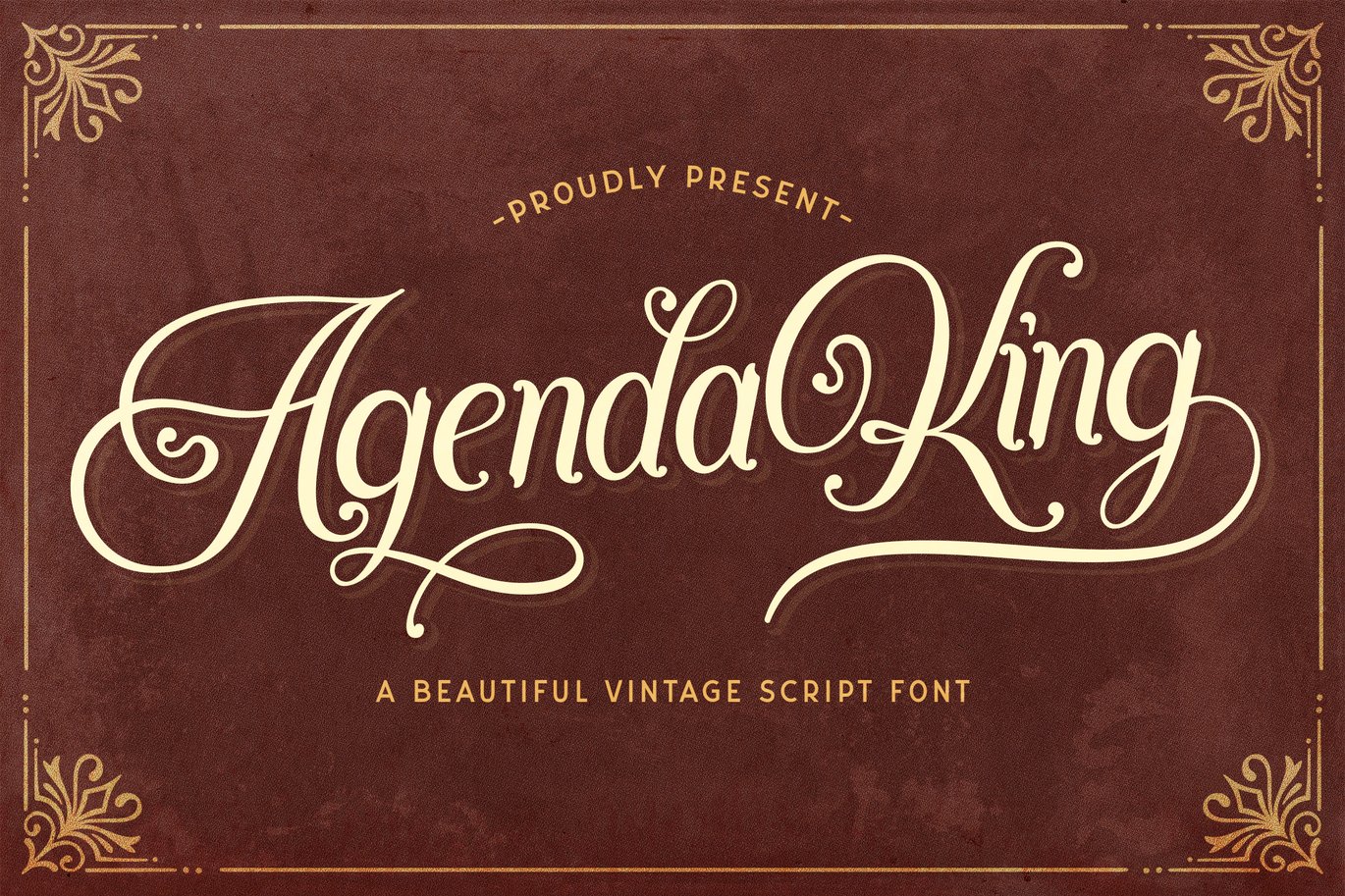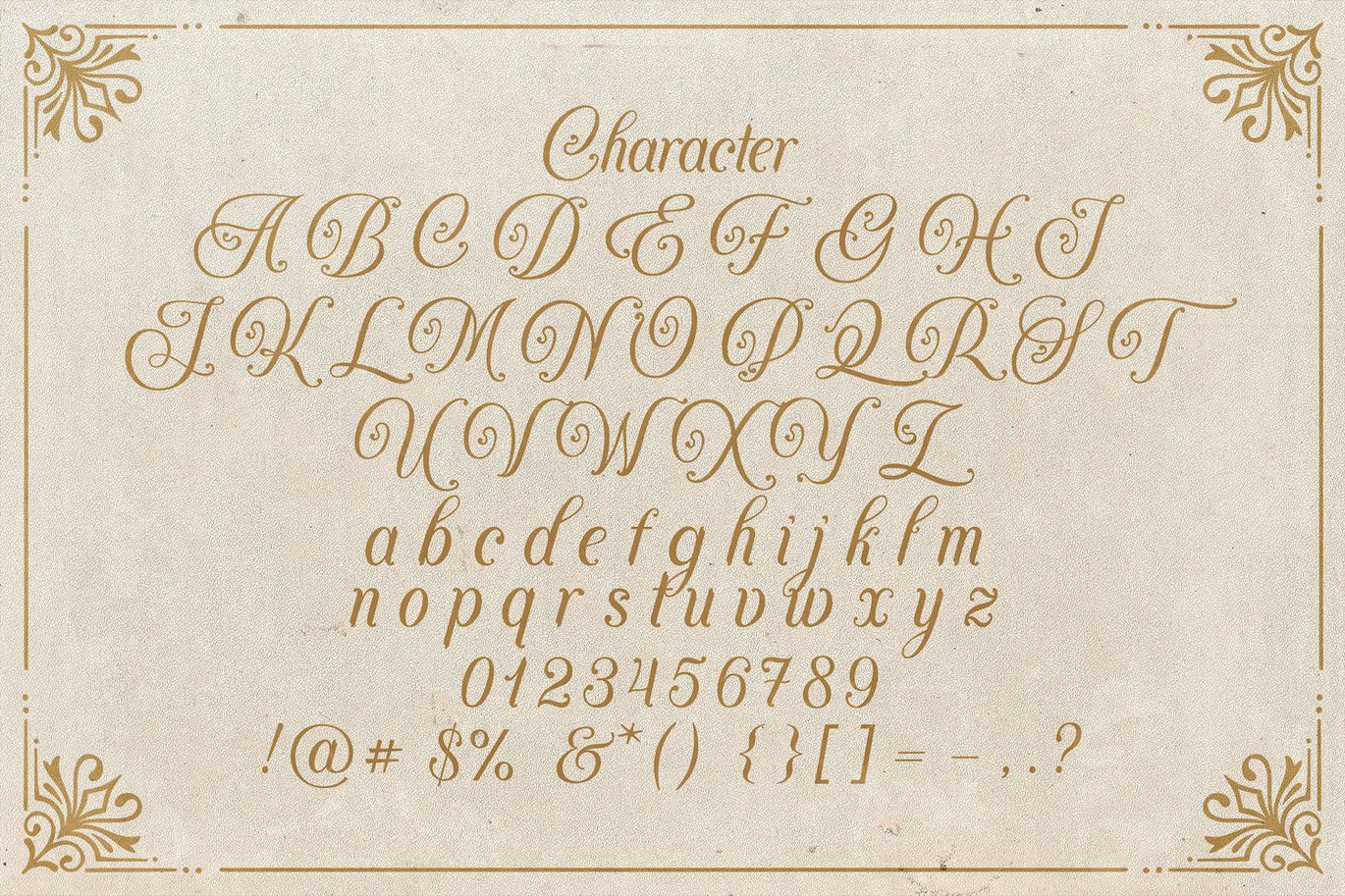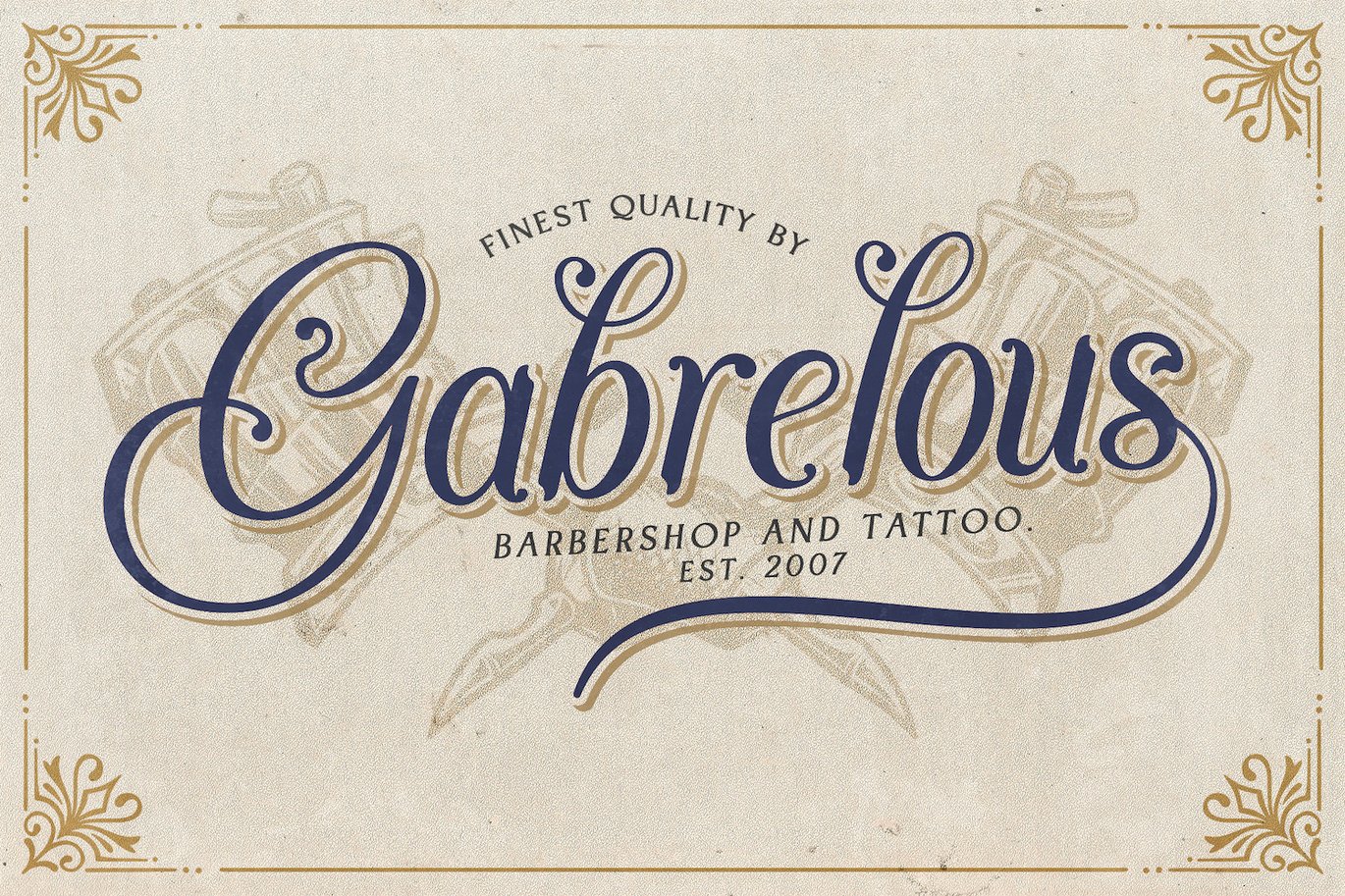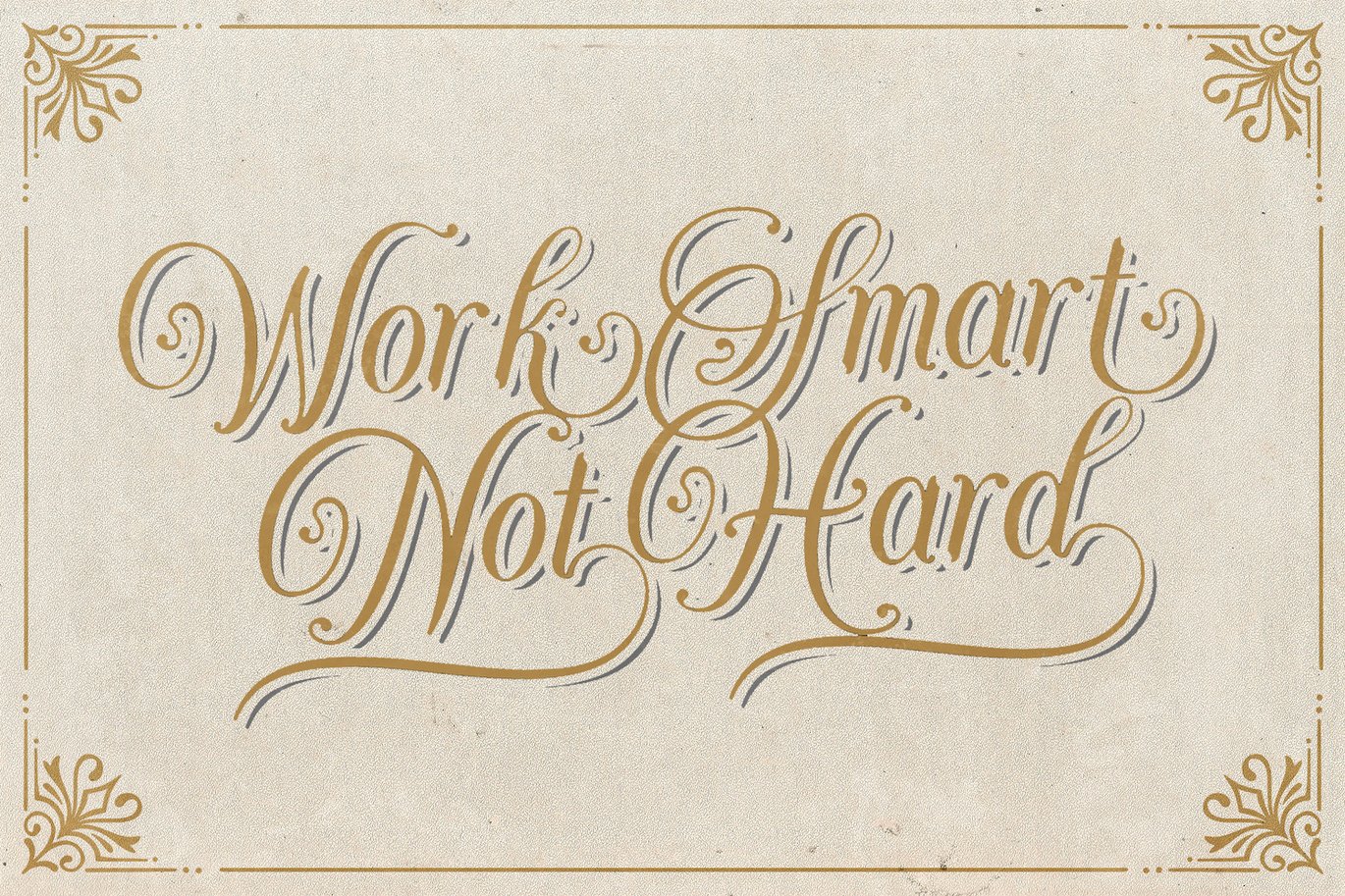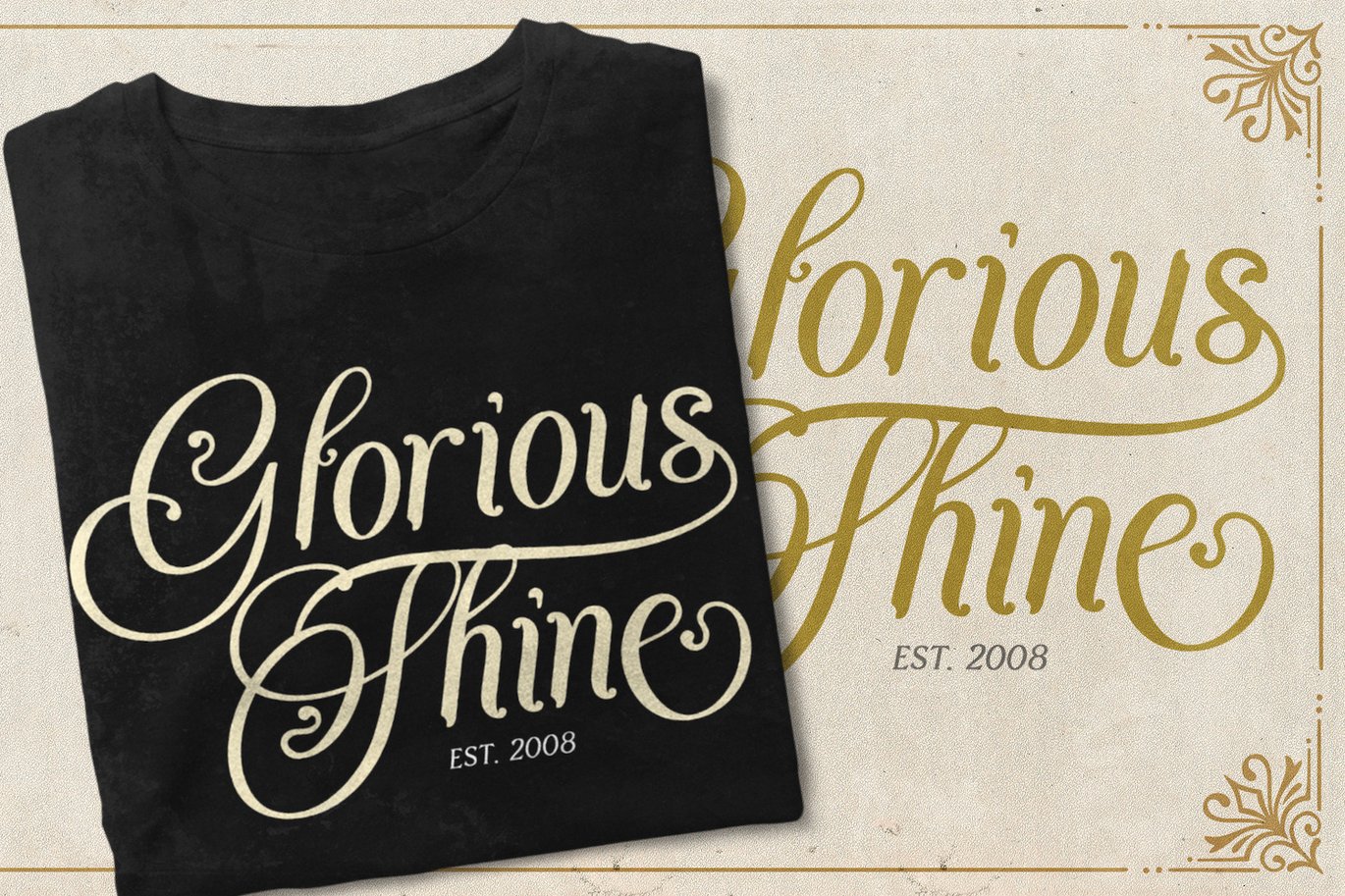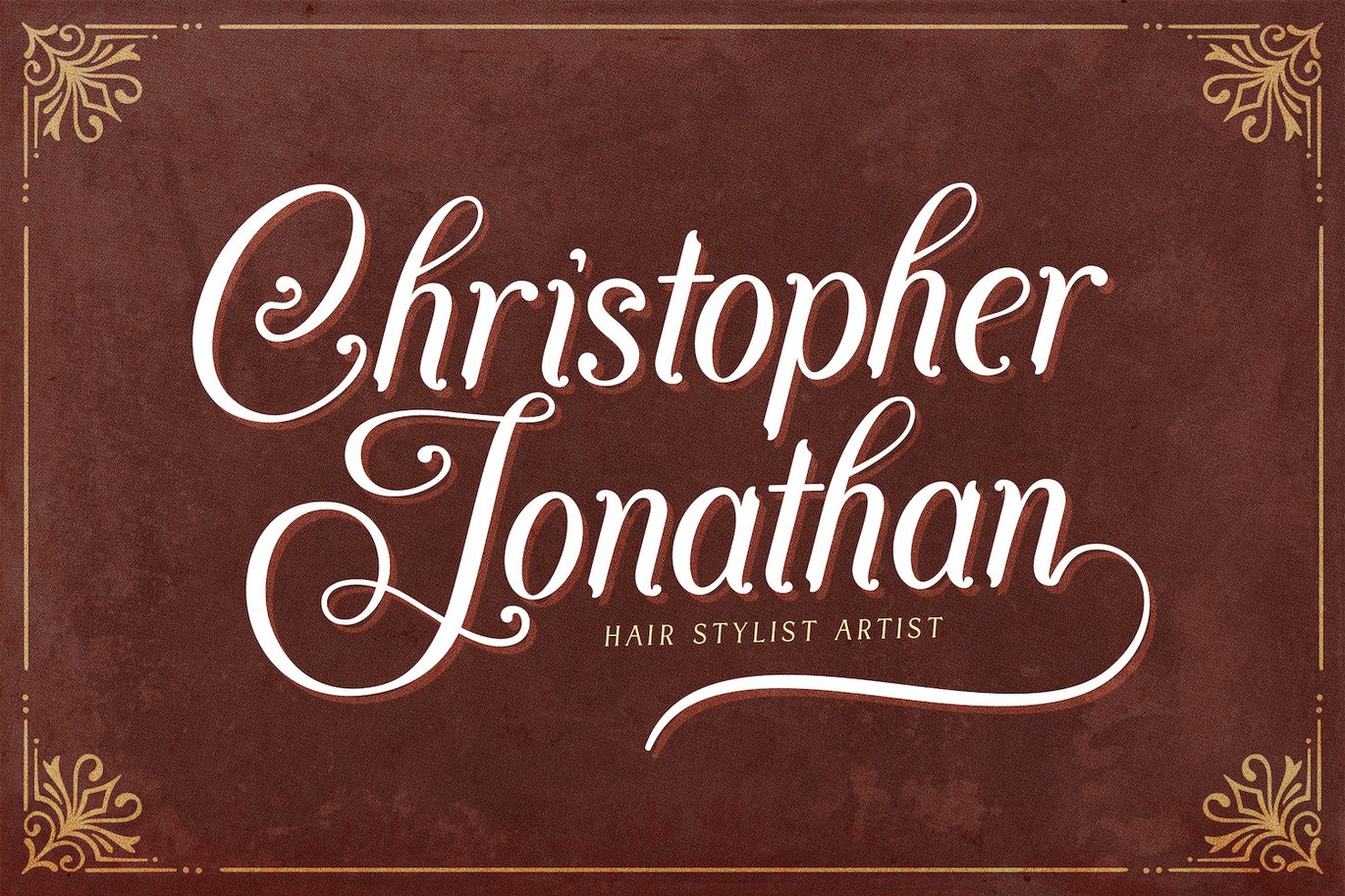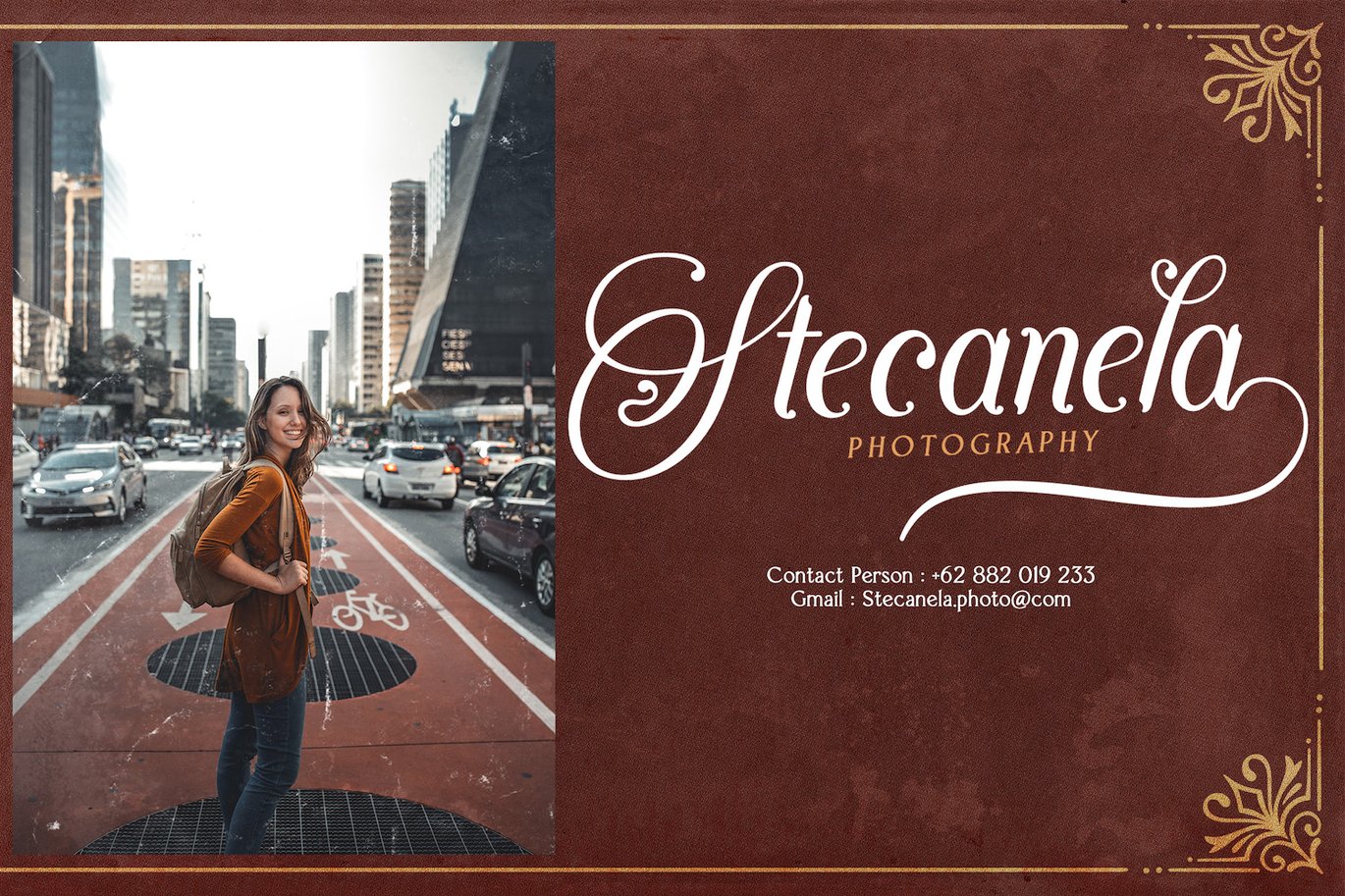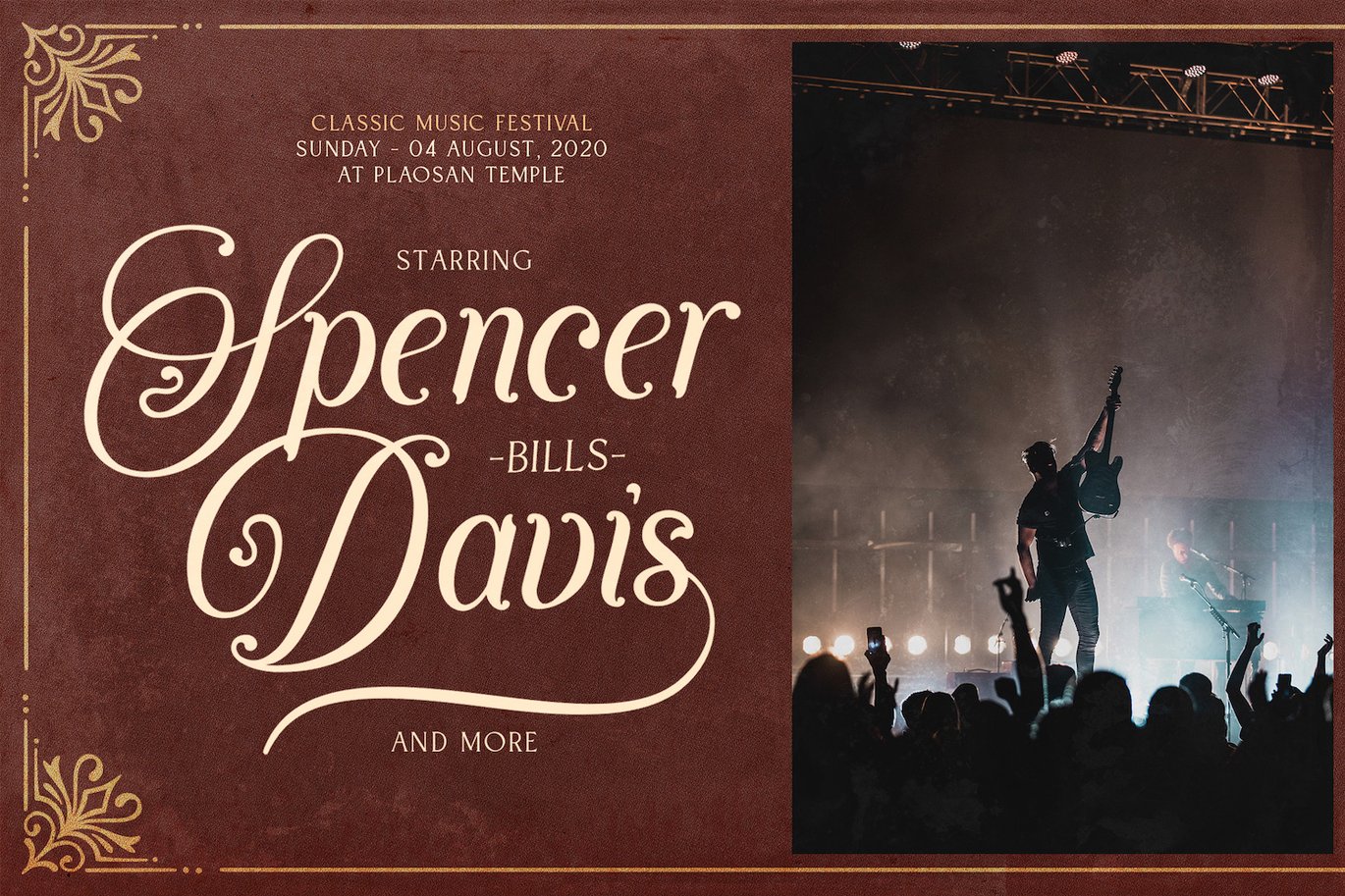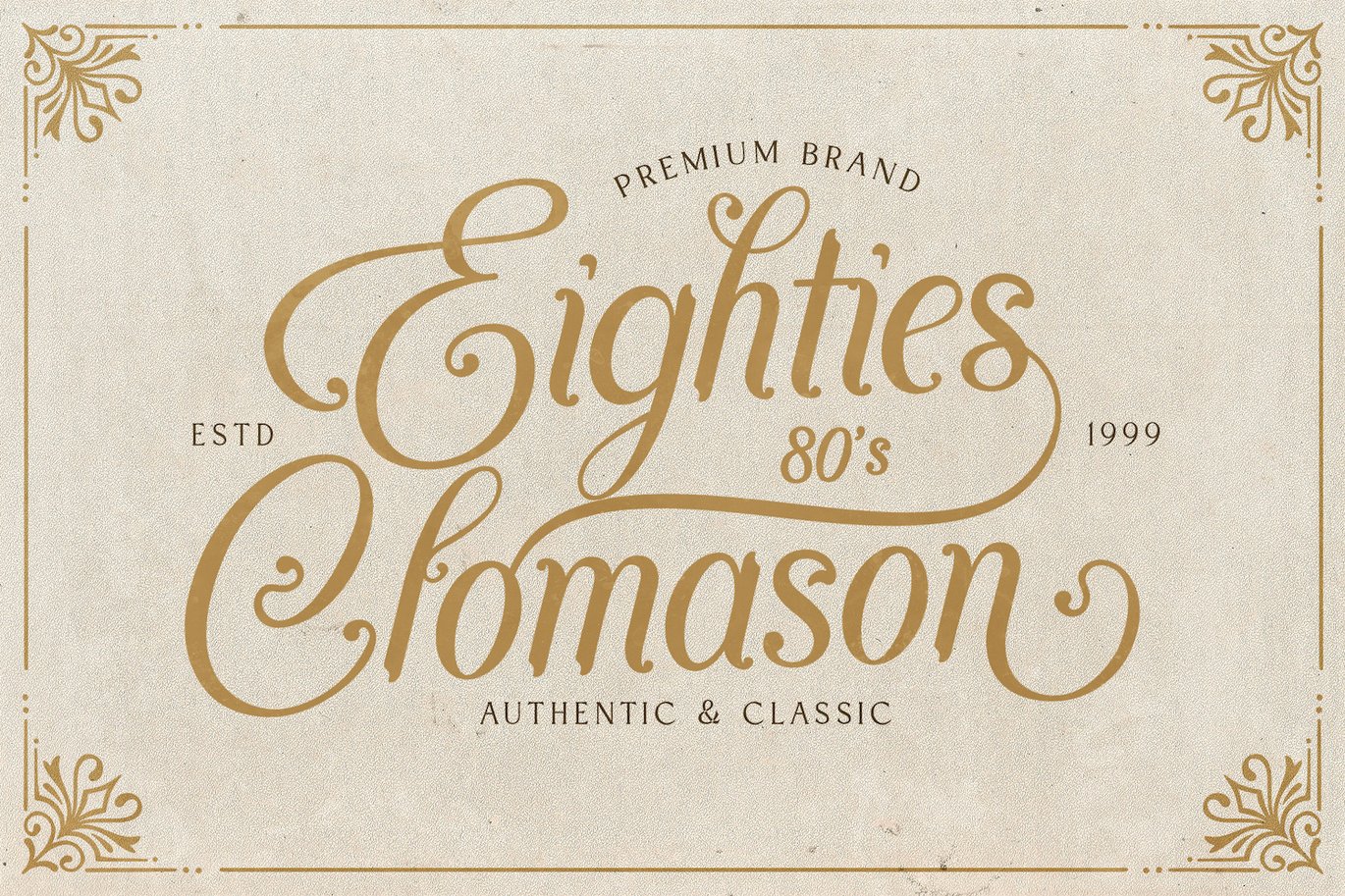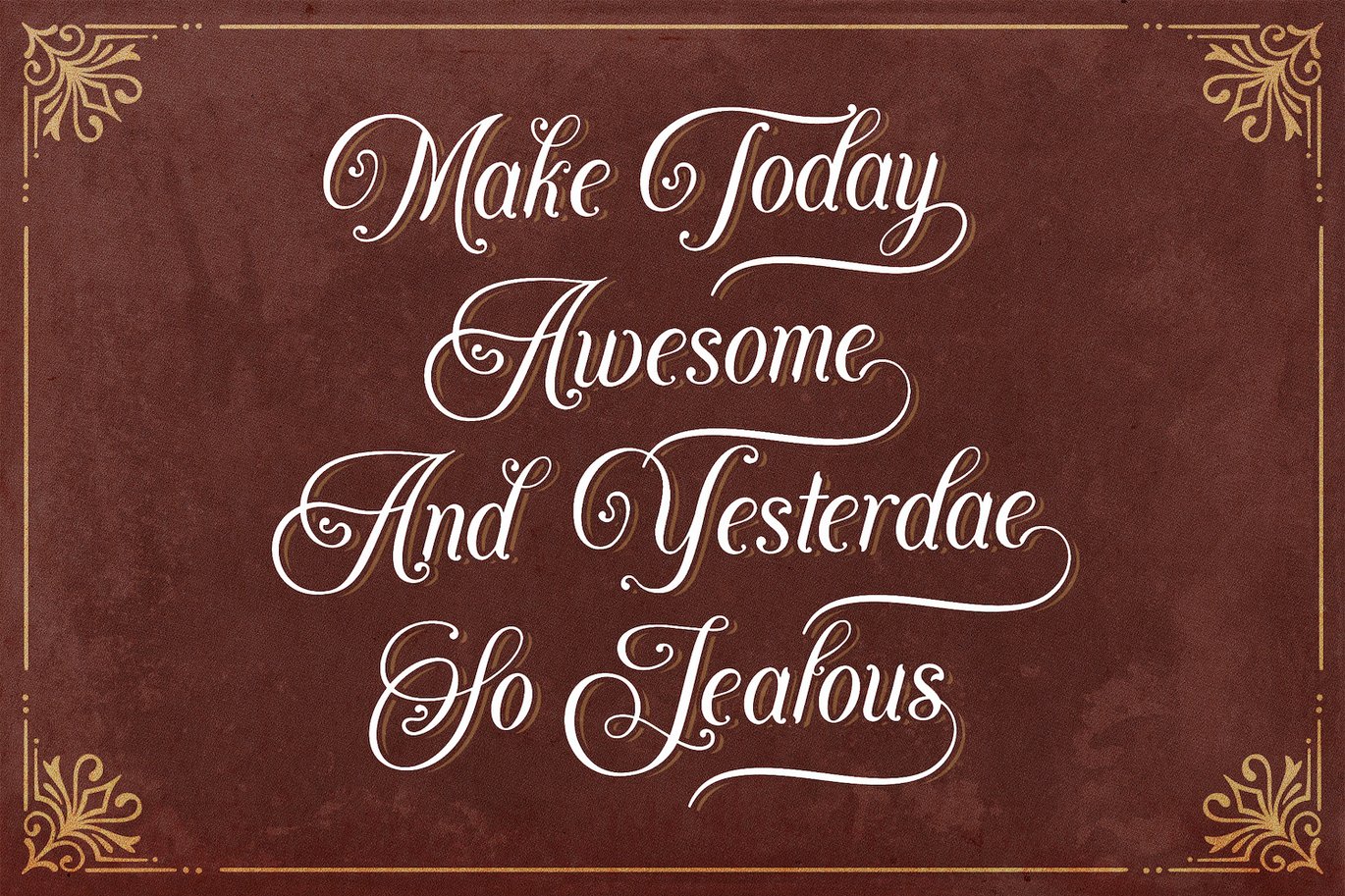
Agenda King – Vintage Script Font
Introducing Agenda King – Vintage Script Font
Agenda King is a beautiful vintage script handwritten font, masterfully designed to become a true favorite. It maintains its classy calligraphic influences while feeling contemporary and fresh. Fall in love with it and bring your projects to the highest levels!